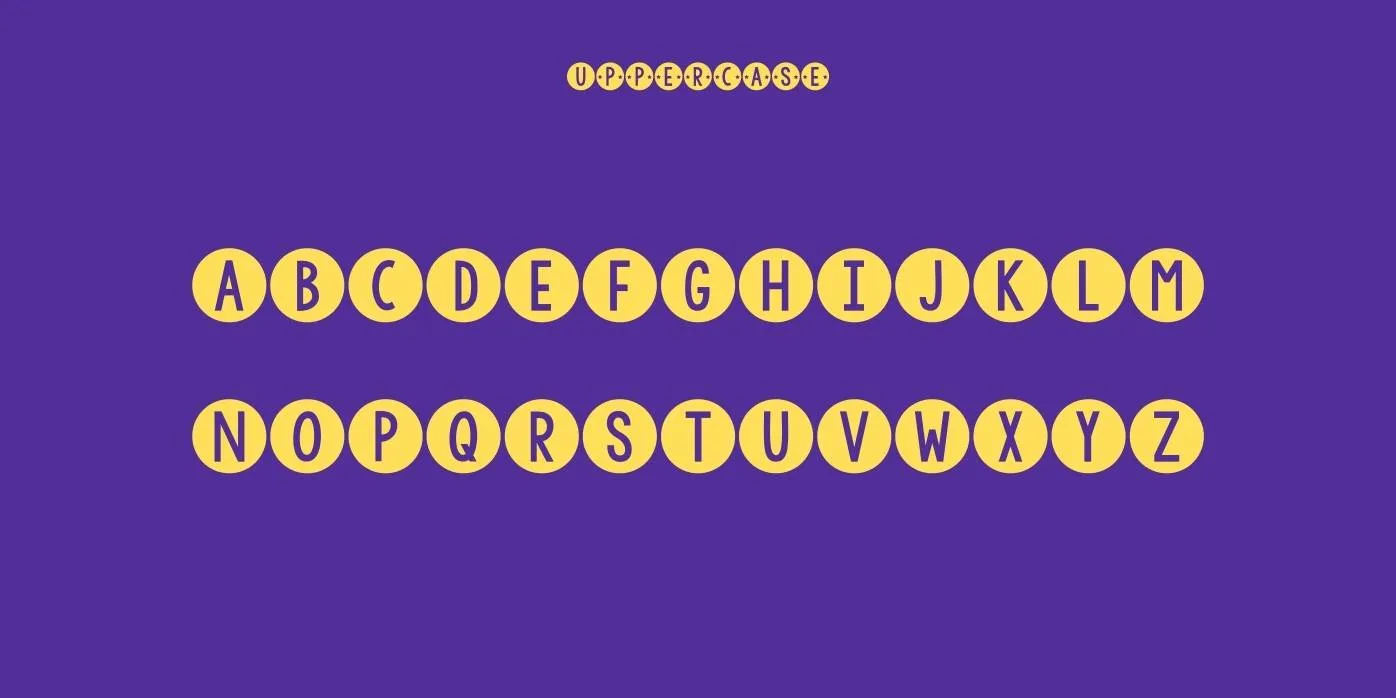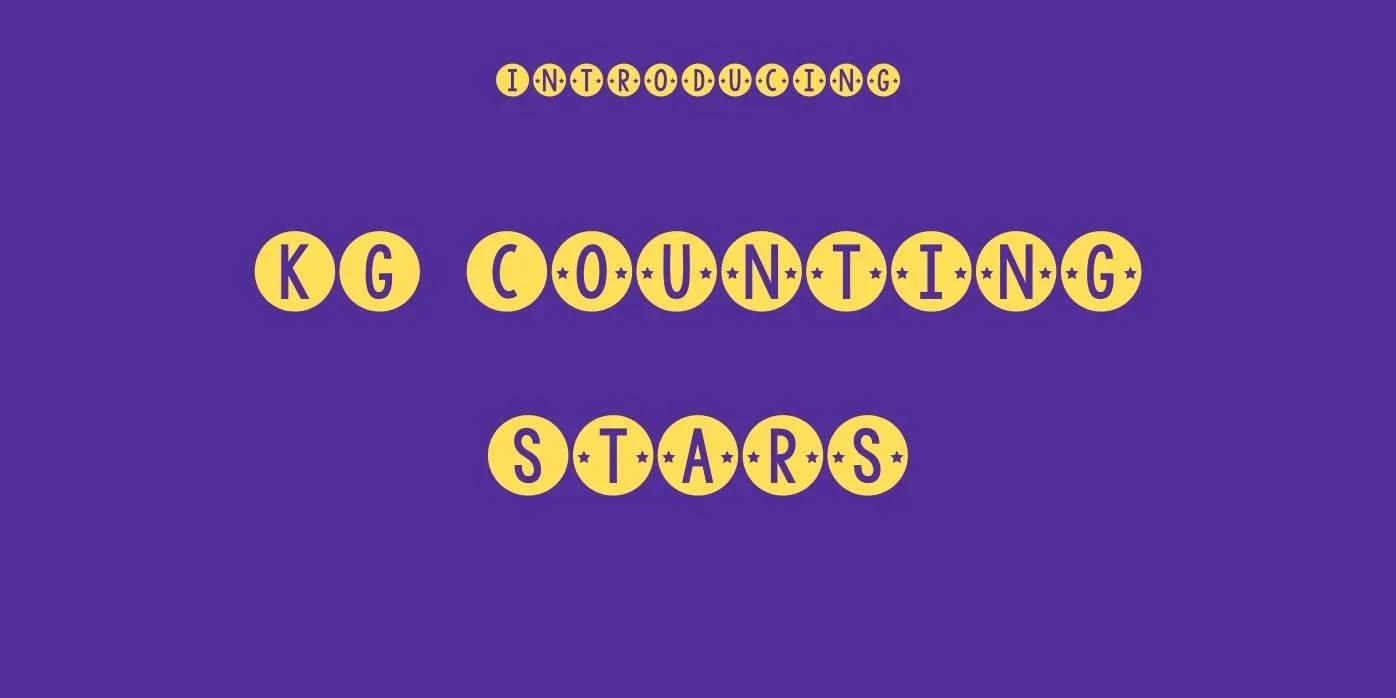
KG Counting Stars Font
Going to introduce an amazing font that is categorized under decorative texture. Kimberly Geswein created this texture. The KG Counting Stars Font has simple, clear, and classic characters enclosed in a circle. The characters become bold and readable when held in a circle.
In this way, it is used for titles, posters, advertisements, and some other designs like that. This texture has elasticity to install on many technology platforms such as Macs, IOS, Linux, Android, and computers. It comes in truetype font format with Opentype font format also. The characters of the font look bold and readable.
It is because of the circles around the texture. The most excellent property of this font is that it looks pretty in titles. The hobo font works well with this font. They give a glorious and pretty look to your texture.